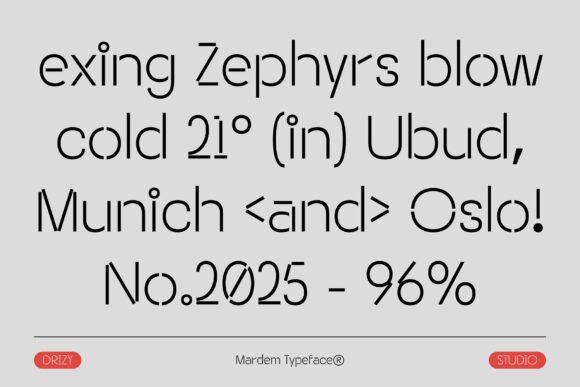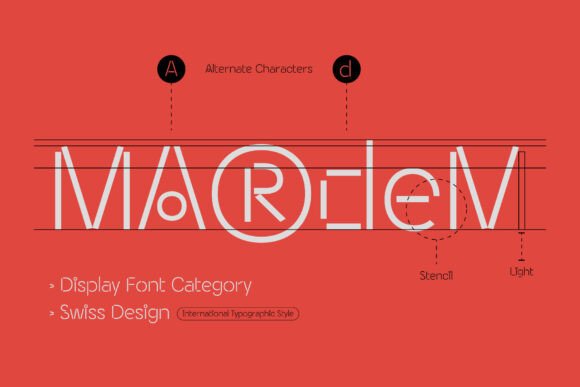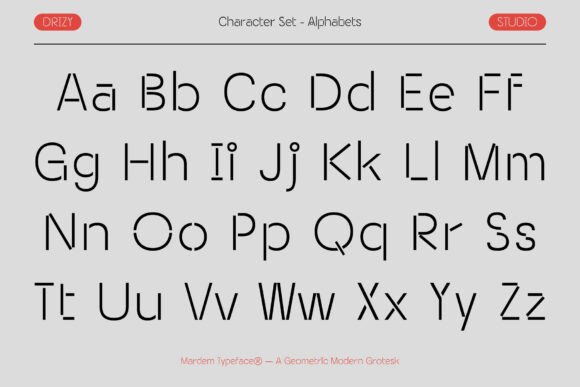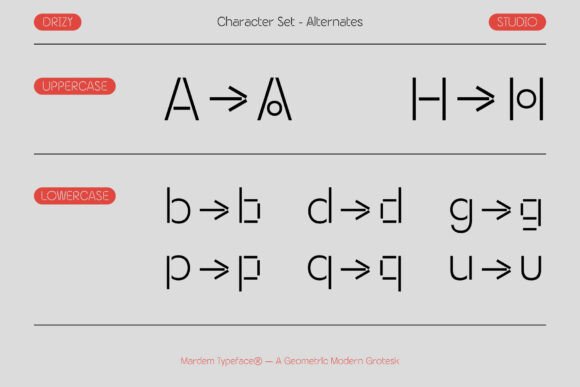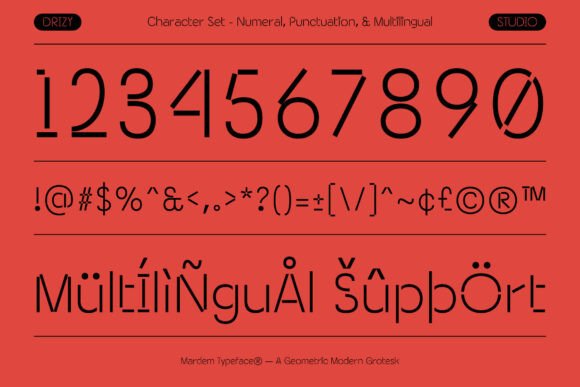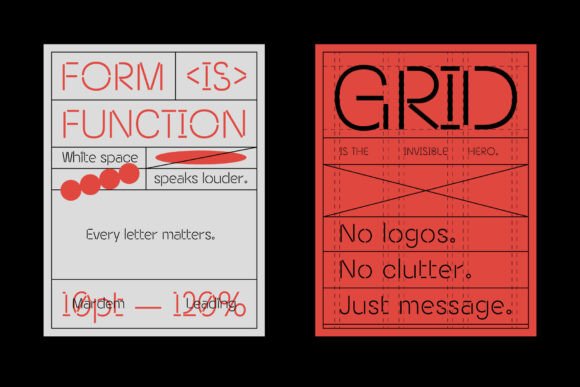
Introduction to Mardem Font
Have you ever stared at a blank canvas, waiting for inspiration to strike? As designers, we’ve all been there – the moment when creativity seems to be at a standstill, and the only thing that can get us going is a spark of innovation. That’s exactly what happens when you lay eyes on the Mardem Font – a geometric modern grotesk font that’s redefined the boundaries of typography.
As a valuable design resource, Mardem Font offers a unique blend of industrial strength and contemporary style. Its bold stencil aesthetic is perfect for branding, tech interfaces, and sci-fi titles, making it an ideal choice for designers looking to create a statement that’s both sophisticated and cutting-edge. Whether you’re crafting a visionary logo or building a sleek poster, Mardem Font delivers high-quality results with a transparent background, making it a must-have for any creative project.
Key Features of Mardem Font
- High-quality design resource ideal for creative projects, offering a unique aesthetic.
- Features a transparent background, allowing for seamless integration into complex design compositions.
- Designed with precision, offering a high-resolution (300 DPI) output that maintains its clarity in various mediums.
- Unique characteristics include a modern, minimalist style that can be easily customized to suit various design needs.
- Includes a range of sizes, from 100 to 1000 points, providing flexibility for designers to choose the perfect scale for their project.
Honest Review: Mardem Font
Mardem Font has been a game-changer for my creative projects. This high-quality design resource has been a staple in my workflow, and I’m excited to share my honest review.
What works well: ✨ The Mardem Font is incredibly versatile and can be used for a wide range of creative projects. I’ve used it for logos, business cards, and even social media graphics. The font is also highly customizable, making it easy to adapt to different design styles.
Some notable features include:
- Transparent background, making it easy to layer over other design elements
- High-quality vector format, ensuring crisp and clear results
What could be improved: ⚠️ While the Mardem Font is excellent, I’ve found that it can be a bit challenging to use in certain design software. The font file can be quite large, which can slow down performance in some programs.
Overall, I’m thoroughly impressed with the Mardem Font. Its high-quality design and versatility make it a valuable addition to any design resource collection. If you’re looking for a reliable font for your creative projects, I highly recommend giving Mardem Font a try.
Mardem Font
Mardem Font is a versatile and high-quality design resource perfect for any creative project. With a transparent background, this font can be easily integrated into various design applications.
Using Mardem Font in Design Applications
Tips for Getting the Most Out of Mardem Font
To get the most out of Mardem Font, experiment with different font sizes, colors, and combinations. This will help you achieve a unique and eye-catching design.
Mardem Font is ideal for use in:
- Marketing materials and advertisements
Alternatives to Mardem Font
Nunito Sans
Nunito Sans is a modern sans-serif font that works well for digital products and creative projects. Its clean lines and high-quality design make it a great alternative to Mardem Font. Use Nunito Sans for designs that require a professional and sleek look. It’s available for free download and features a transparent background, making it easy to use in various design contexts.
Nunito Sans is similar to Mardem Font in its modern and clean design, but it has a more rounded and friendly feel. It’s a great option for designers who want a high-quality font without the cost.
Arimo
Arimo is a clean and simple sans-serif font that’s perfect for designs that require a clear and readable text. Its high-quality design and transparent background make it a great alternative to Mardem Font. Use Arimo for creative projects that require a clean and modern look. It’s available for free download and is a great resource for designers.
Arimo is similar to Mardem Font in its simplicity and clean design, but it has a more straightforward and easy-to-read feel. It’s a great option for designers who want a high-quality font that’s easy to use.